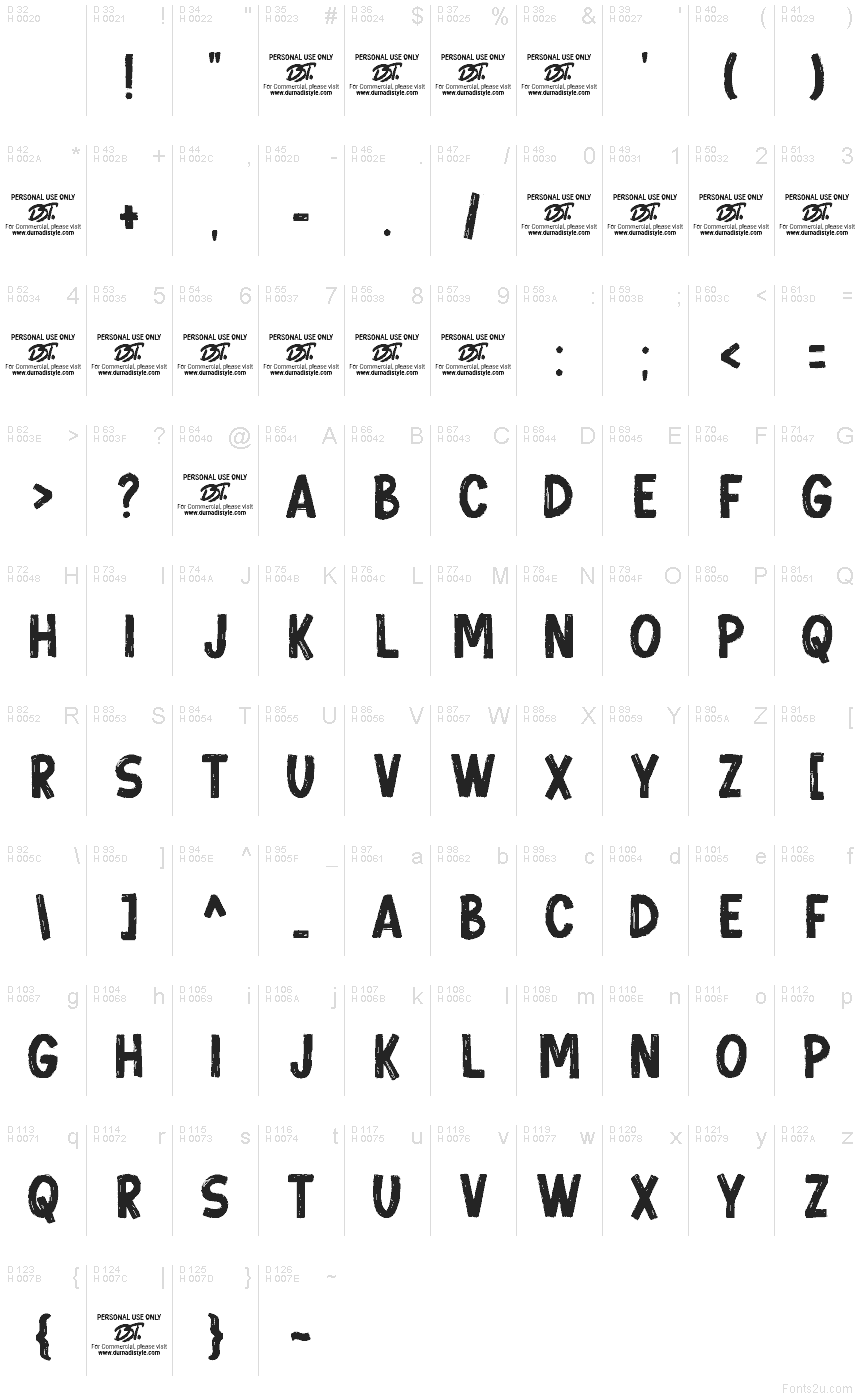
Sumber Brush
Sumber Brush font by DumadiStyle is a brush font with a condensed width and an artistic style. Its textured appearance features rough edges which expose the underlying expressive of this typeface in a modern aesthetic.
This free brush font is excellent for grunge designs, invitation cards, clothing branding and packaging, logo making, handwriting display typographies, motivational quotes, posters/flyers or brochures.